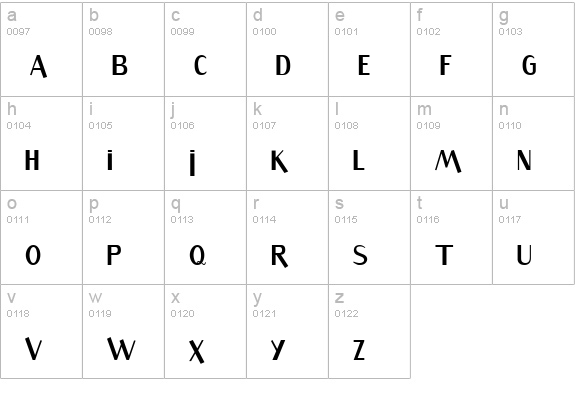
Sandwich Font Details
Introducing Sandwich font, a delectable and versatile typeface that will satisfy all your typographic cravings. With its unique blend of boldness and quirkiness, this font is sure to add a flavorful touch to any design project. Sandwich font offers a wide range of characters, from uppercase and lowercase letters to numerals and punctuation marks, making it perfect for creating eye-catching headlines, captivating logos, and engaging social media posts. Its charming and playful appearance will make your text stand out, leaving a lasting impression on your audience. But what's even better is that Sandwich font is completely free! Yes, you read that right. You can freely download this font at FontsMarket.com, where you'll find an extensive collection of high-quality fonts for all your creative needs. Whether you're a professional designer or just someone who loves experimenting with typography, Sandwich font is a must-have addition to your font library. Don't let the name fool you – Sandwich font is anything but ordinary. It's a delightful combination of boldness and whimsy, perfect for adding a touch of personality to your designs. So go ahead, download Sandwich font today and let your creativity run wild. Your next design project will never taste the same again!